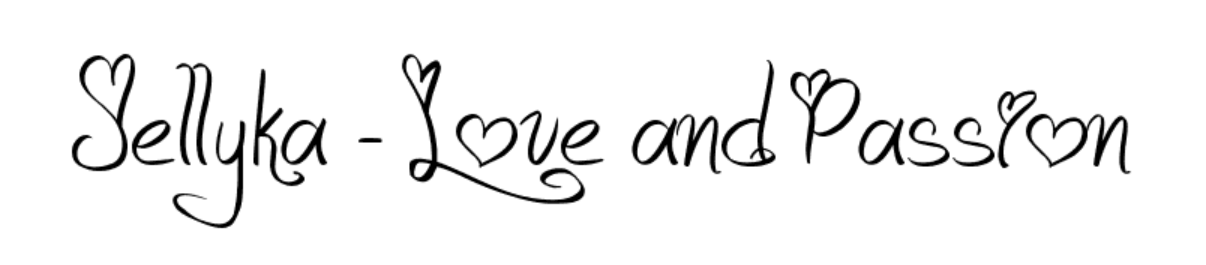
Love passion font become designed by Jellyka Nerevan.
Love Passion Font
This is a superb TrueType font that has its very own extremely good seems and textures. This font family may be used everywhere like to your love quotes website, or anywhere you want to add some adorable phrases. This is really an awesome font.